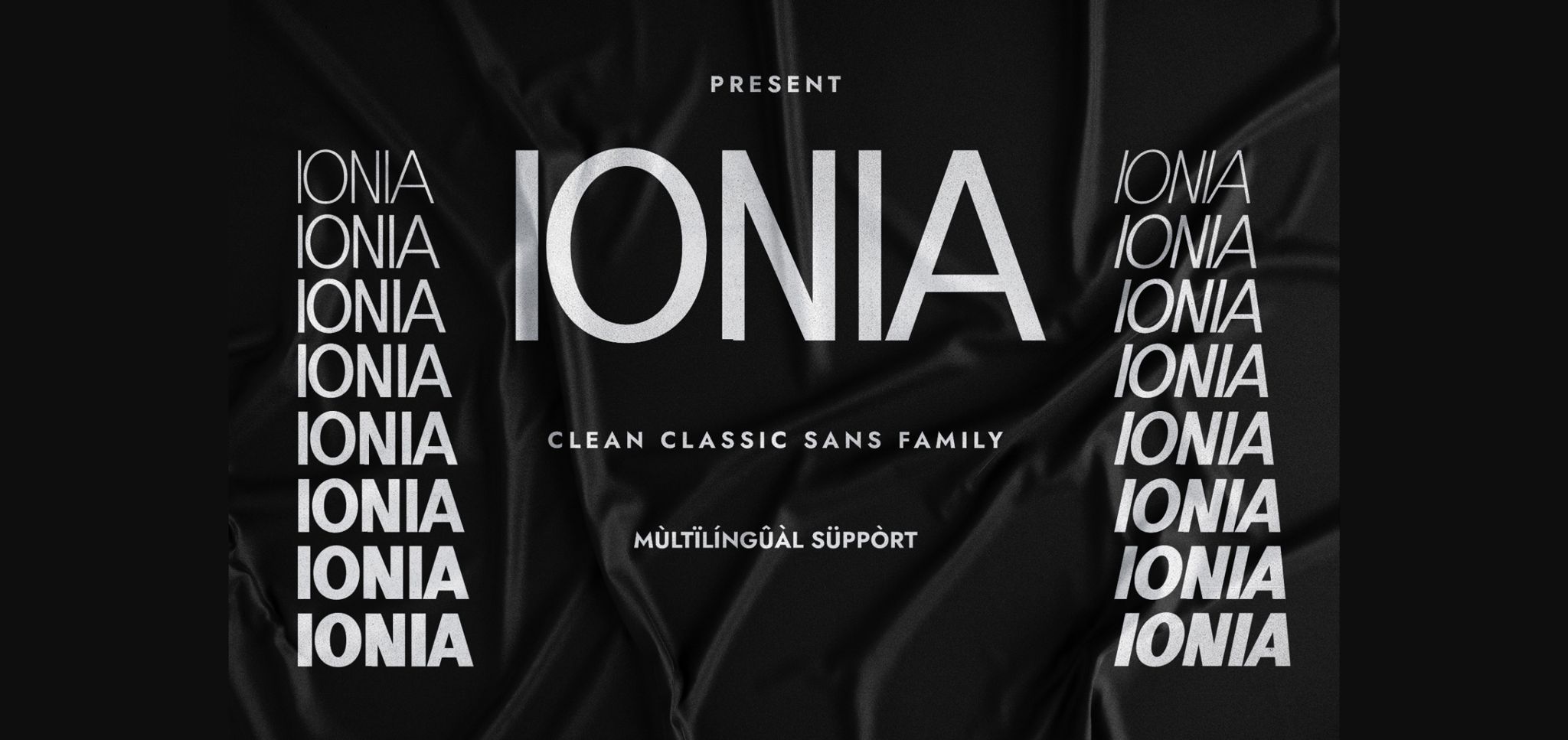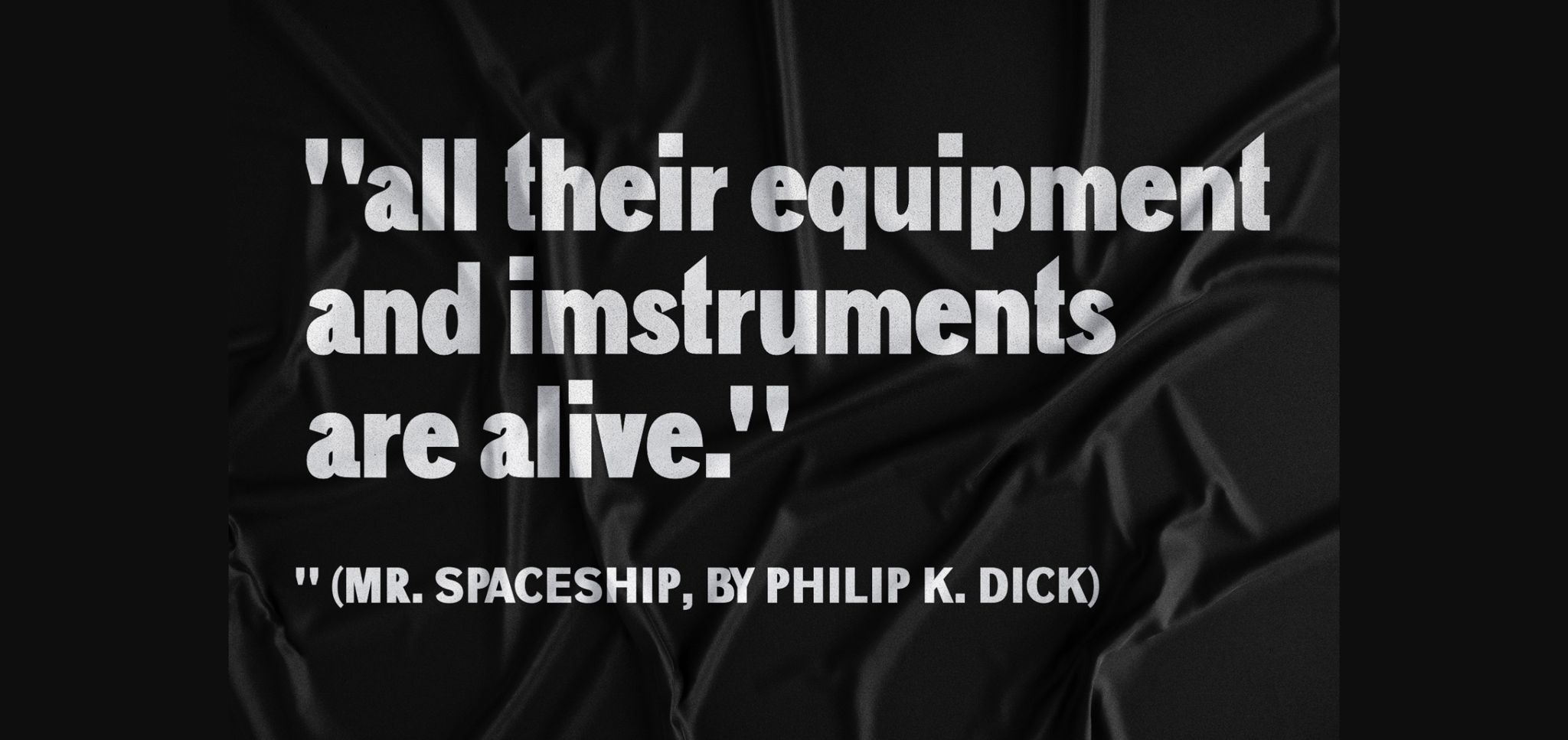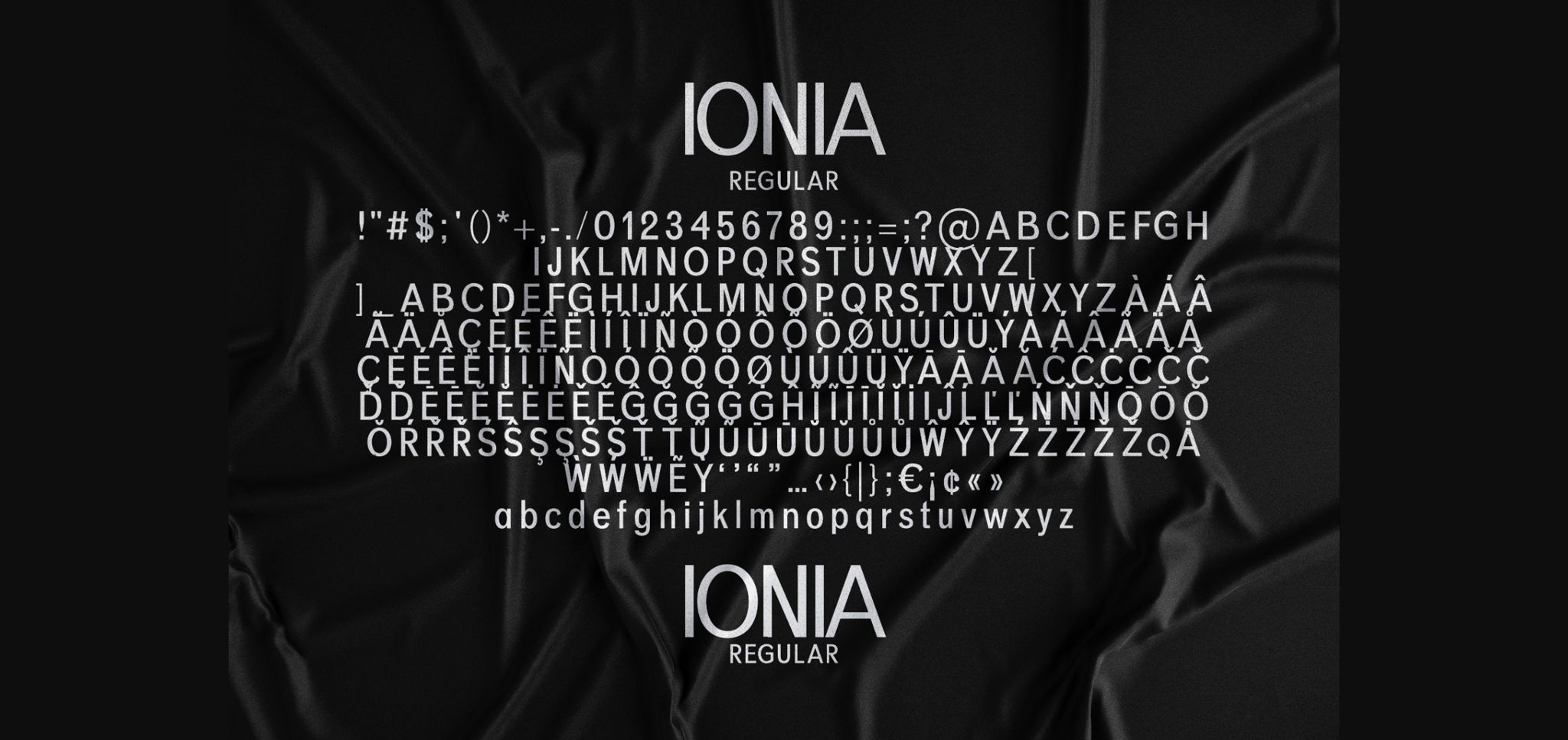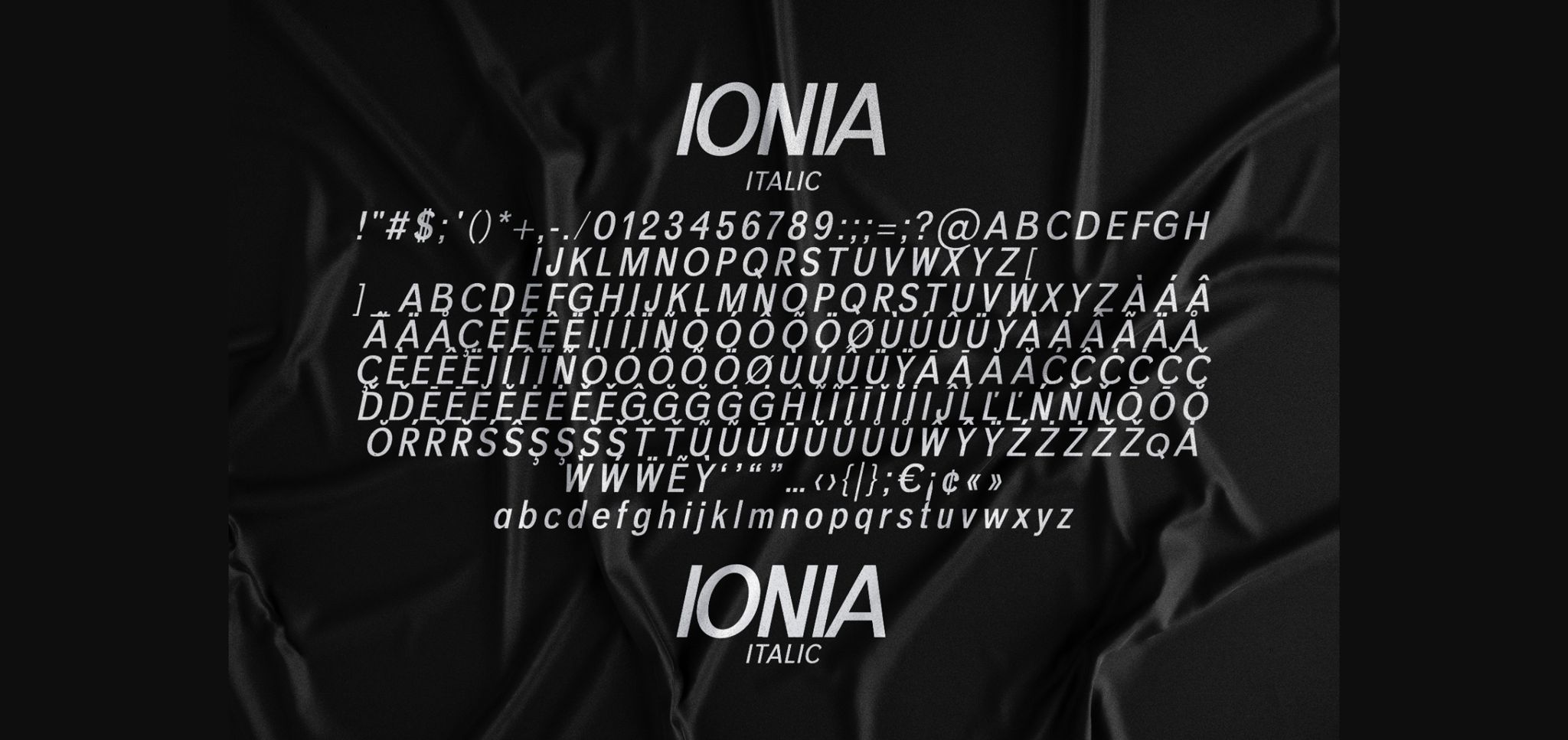
About Ionia Font
Ionia is a classic grotesque sans serif font family that is heavily influenced by Swiss typeface designers. Whatever the context is, this font family will add great value to your creations. Use it confidently in your creative ideas, and notice how this font family has the potential to bring each of your creative ideas to the highest level!